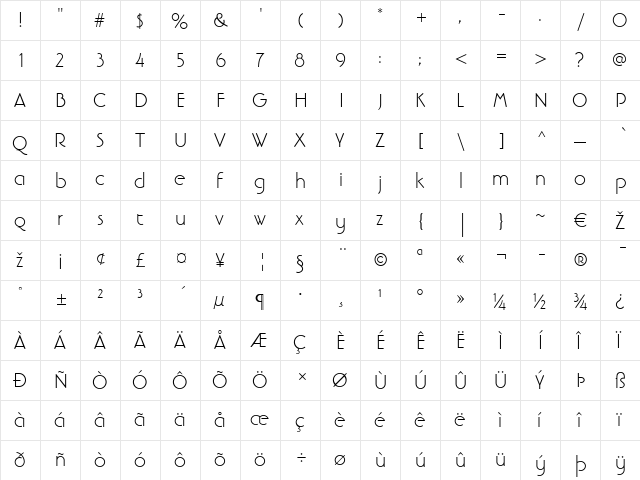
LTBanjoman Light Regular
Design Context for LTBanjoman Light Typeface
LTBanjoman Light offers clean, dependable letterforms without strong stylistic allegiance, making it a practical choice for designers who need flexibility. Its slender proportions lend an understated elegance to any composition.